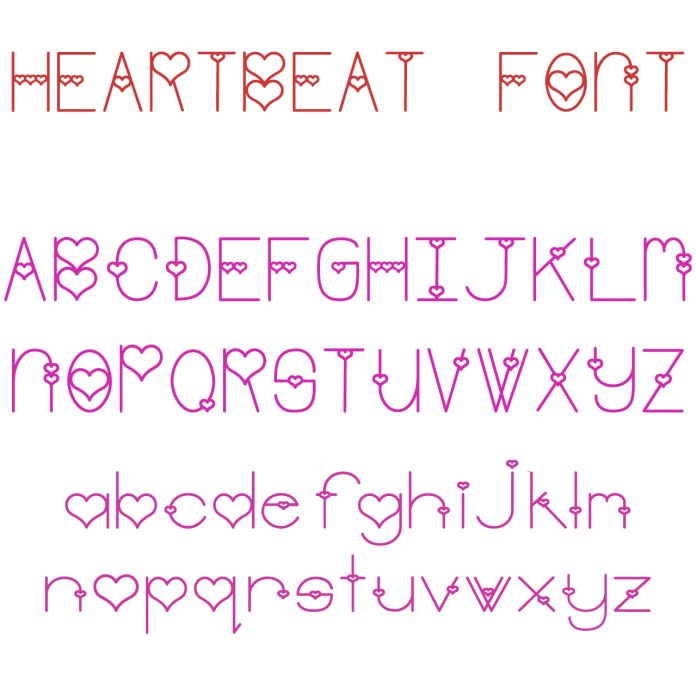
This adorable monoline craft font features delicate heart accents, adding a touch of sweetness to your designs. Perfect for Valentine's Day, baby-themed projects, or any creative endeavor that calls for charm and whimsy, this font is versatile and easy to use. Its smooth, continuous lines make it ideal for crafting, from cardmaking and scrapbooking to vinyl projects and party decor. Add a heartfelt flair to your creations with this cute and playful font!